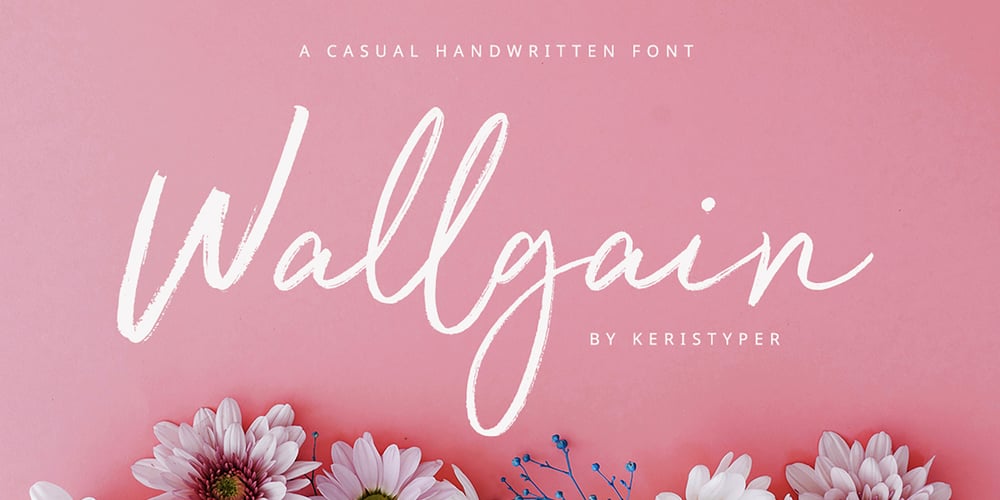
Wallgain
Wallgain font
Wallgain Font Family was designed by Tezar Tantular and published by Keristyper Studio. Wallgain contains 1 styles and family package options. Introducing Wallgain A rustic, dapper handwritten font with a personal touch. With quick dry strokes and a signature style.Wallgain Handwriting Font multilingual support: Afrikaans, Albanian, Catalan, Danish, Dutch, English, Estonian, French, Finnish, German, Icelandic, Indonesian, Italian, Malay, Norwegian, Portuguese, Spanish, Swedish, Zulu, and many more.What’s Included : Standard & Multilingual glyphs Ligature Works on PC & Mac Simple installations Accessible in Adobe Illustrator, Adobe Photoshop, Adobe InDesign, and even work on Microsoft Word. Hope you enjoy our font!